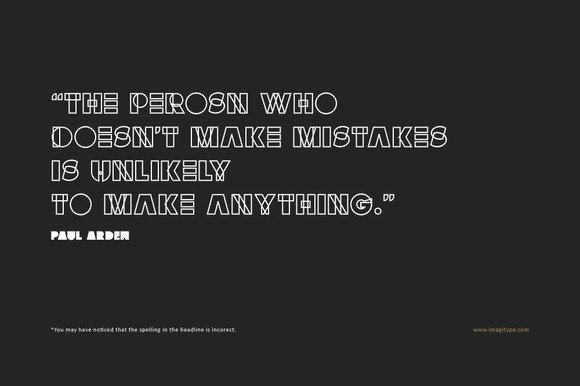
Introduction to Rancang Font
As a designer, have you ever found yourself stuck on a creative project, desperately searching for that one perfect element to elevate your design? Perhaps it’s the perfect font, the one that makes your message stand out and captures the essence of your idea. For me, that moment came when I stumbled upon the Rancang Font – a stunning outlined font that instantly transformed my design from ordinary to extraordinary.
With its sleek, modern design and bold aesthetic, the Rancang Font is a game-changer for designers looking to add some high-quality flair to their work. Whether you’re working on a free download or a paid project, this versatile font is sure to make a lasting impression. Plus, its transparent background makes it easy to use and customize in any creative project.
Rancang Font
- High-quality font design with a transparent background, perfect for creative projects and design resources.
- Available in multiple sizes, including small caps, to cater to different design requirements.
- Resolution-independent design ensures crisp and clear typography, regardless of the screen resolution or device.
- Customizable font styles, including bold, italic, and regular, to suit various design needs.
- Perfect for designers, artists, and creatives working on high-end projects, thanks to its professional and sophisticated design.
- Comes with a comprehensive character set, including international characters and symbols, to support diverse languages and scripts.
Honest Review: Rancang Font
I recently stumbled upon Rancang Font and was excited to test it out for my next creative project. As a designer, I’m always on the lookout for high-quality fonts that can elevate my designs.
Rancang Font did not disappoint. With a wide range of styles and weights to choose from, I found it perfect for creating a unique visual identity for my project. The font is available for free download, which is a major bonus for designers working on tight budgets.
What works well: ✨ High-quality design, ✨ transparent background, and ✨ wide compatibility with various design software. I also appreciated the font’s versatility, making it suitable for both print and digital designs.
What doesn’t work well: ⚠️ Limited customization options, which might be a drawback for designers who prefer more control over their fonts. Additionally, the font library is not as extensive as some other popular font collections.
Overall, I’m impressed with Rancang Font and would definitely consider using it for future projects. While it may have some limitations, its high quality and free download make it a valuable design resource for creatives.
- Perfect for: Creative projects, logos, branding, and editorial designs
- Font styles: Sans-serif, serif, script, and display fonts
Rancang Font
Rancang Font can also be used in PowerPoint and Word to create presentations and documents with a high-quality font. To use Rancang Font in PowerPoint, select the font from the font menu and start typing. In Word, you can use Rancang Font to create documents with a transparent background, making it perfect for creative projects.
Rancang Font is commonly used in various design projects, including brochures, flyers, business cards, and social media graphics. With its high-quality design and transparent background, Rancang Font is perfect for designers who want to create professional-looking designs with ease.
Getting the Most Out of Rancang Font
To get the most out of Rancang Font, use it in combination with other design resources, such as images and graphics. Experiment with different font sizes and styles to create unique and eye-catching designs. With Rancang Font, you can create high-quality designs that stand out from the crowd.